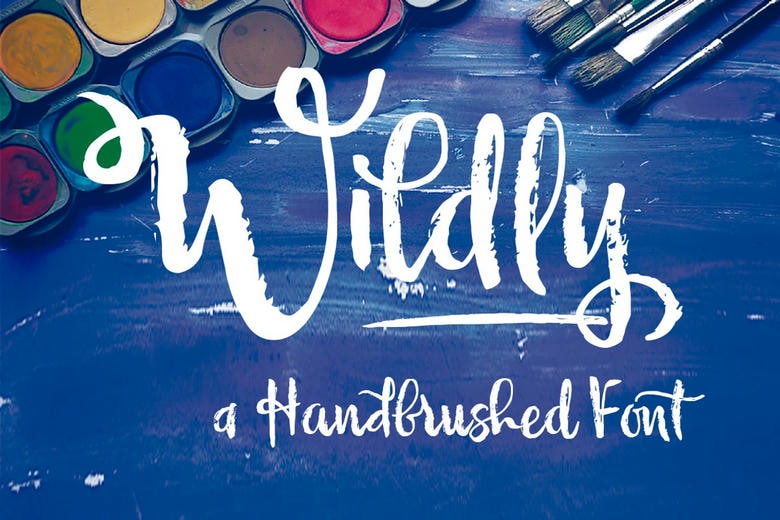
Wildly Font
Wildly is a casual font with butterfly elements and clean handwritten look, modern and hand brushed font. That’s why I have designed Wildly consciously with the aim to keep within its glyphs initial dry brush styled defect and a bouncy baseline if possible for the more personalimpact even more truthful. Because it is an Open Type, exclusive release, with an amount of 622 glyphs and 50 ornaments, it includes special alternatives for all the letters, and has a lot of possibility an an infinity of combinations.
There are plenty of options to allow you to create something unique and special: standard and discretionary ligatures standard condensed swashes and stylistics alternates for all the letters. These gorgeous type faces already have an enhanced character set to support central and eastern as well as western European languages. This will assist your flair and will simplify the creation of those great and stylish typographical pieces.
Wildly Brush Script Font